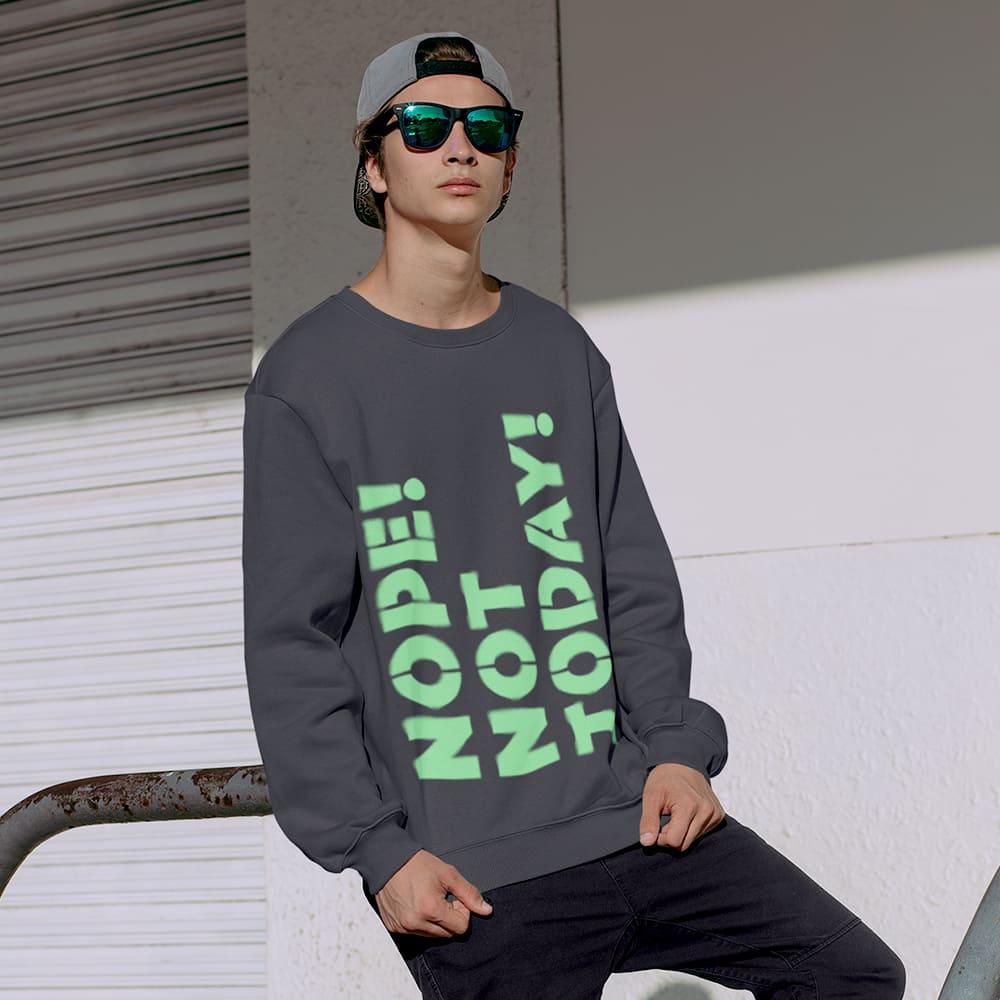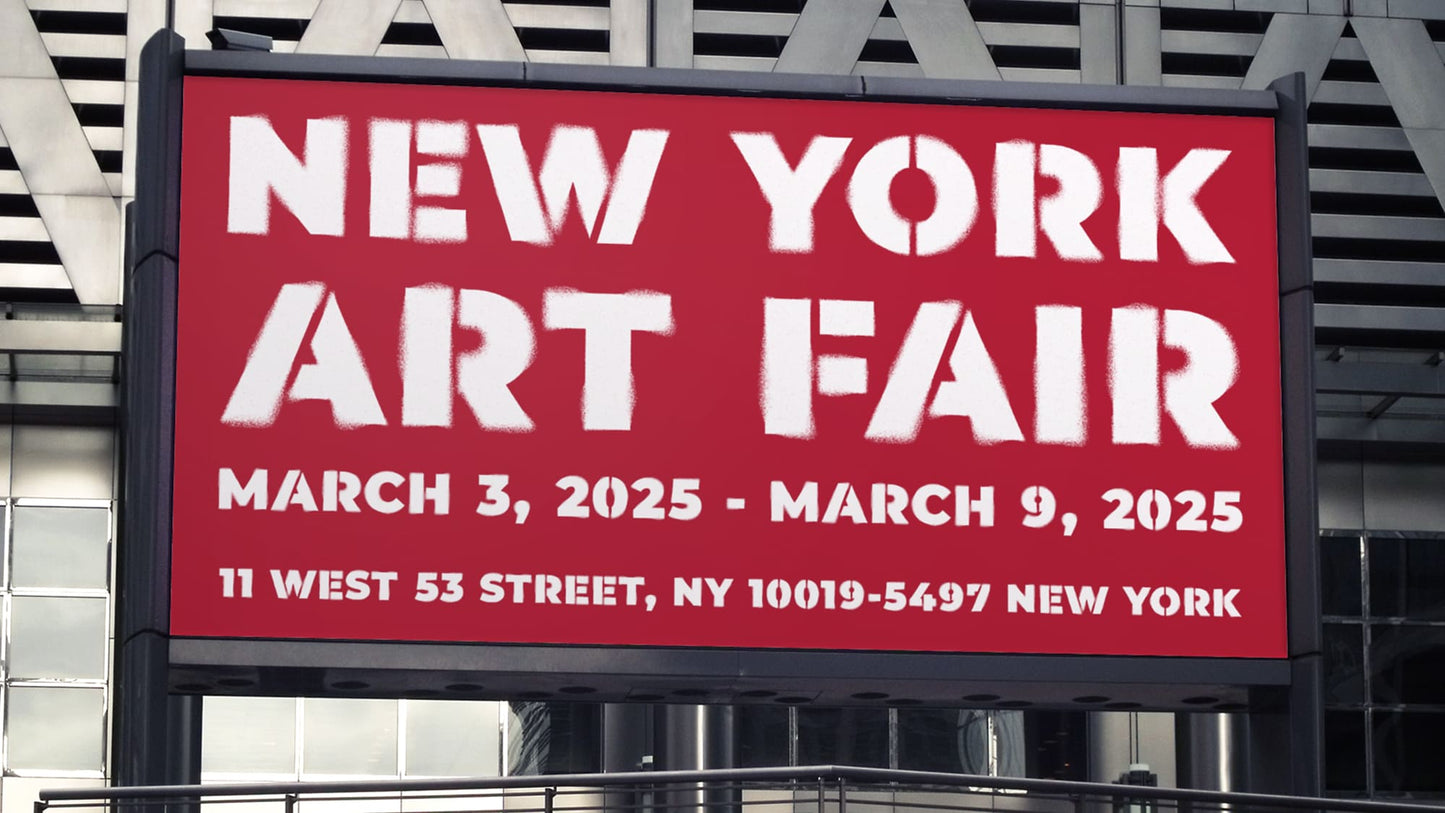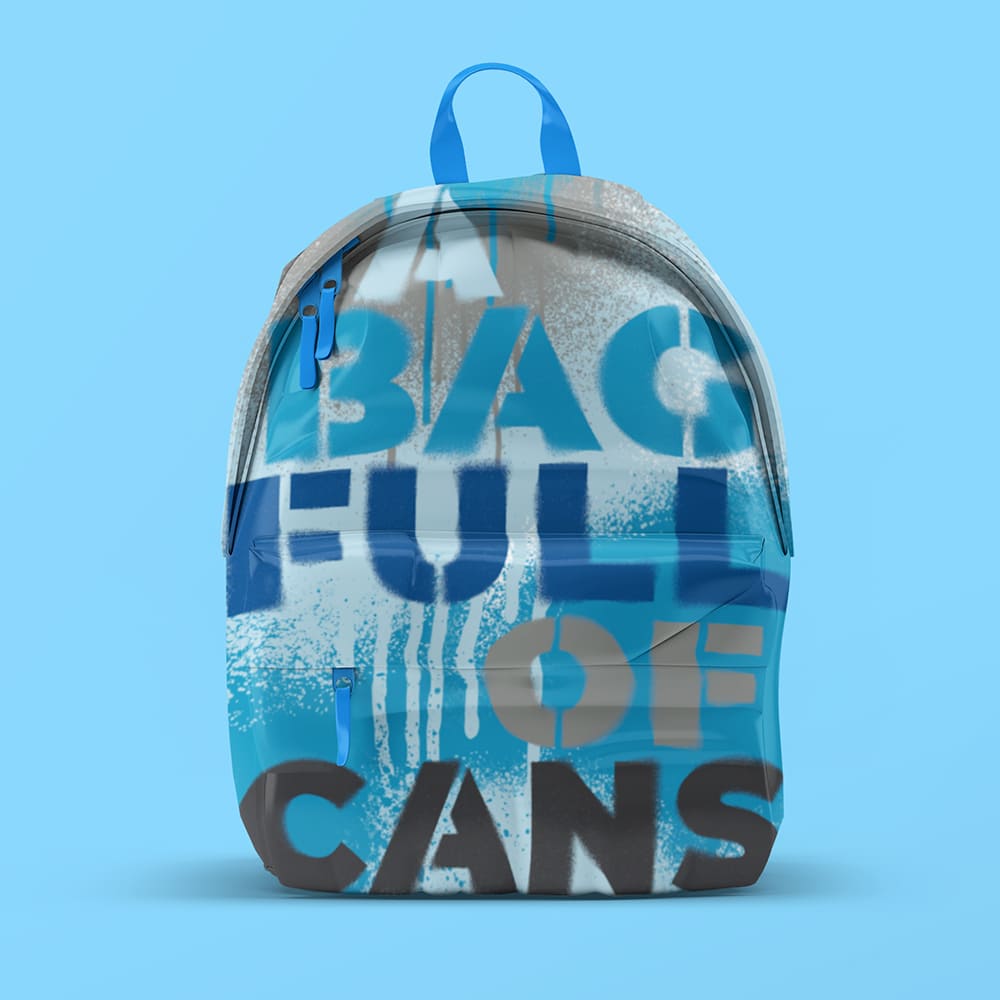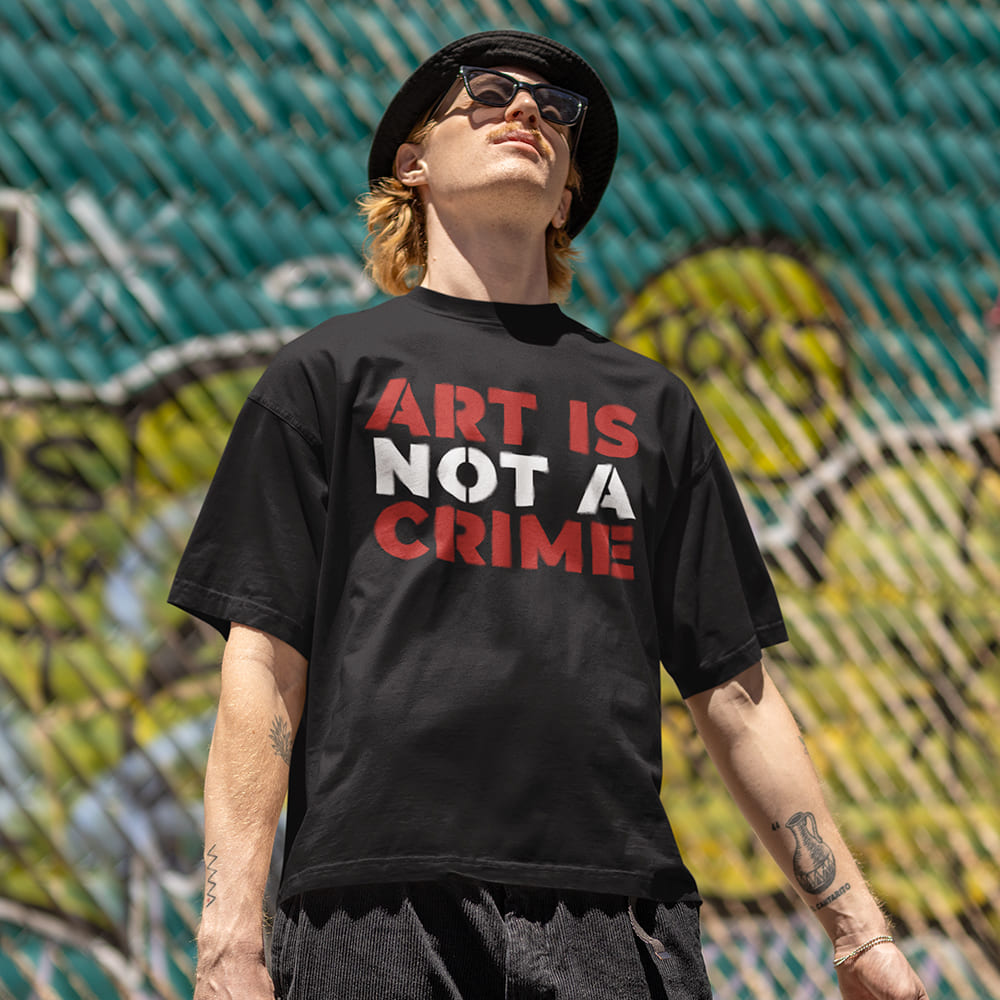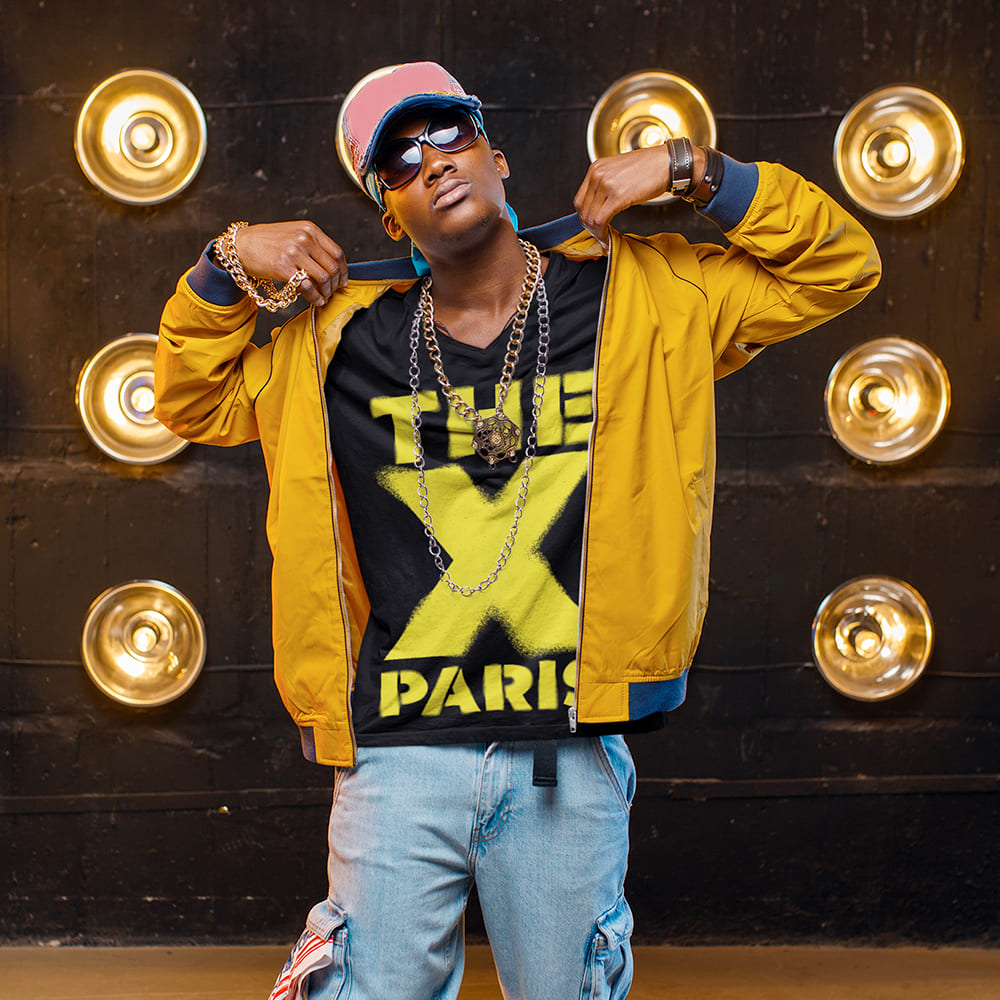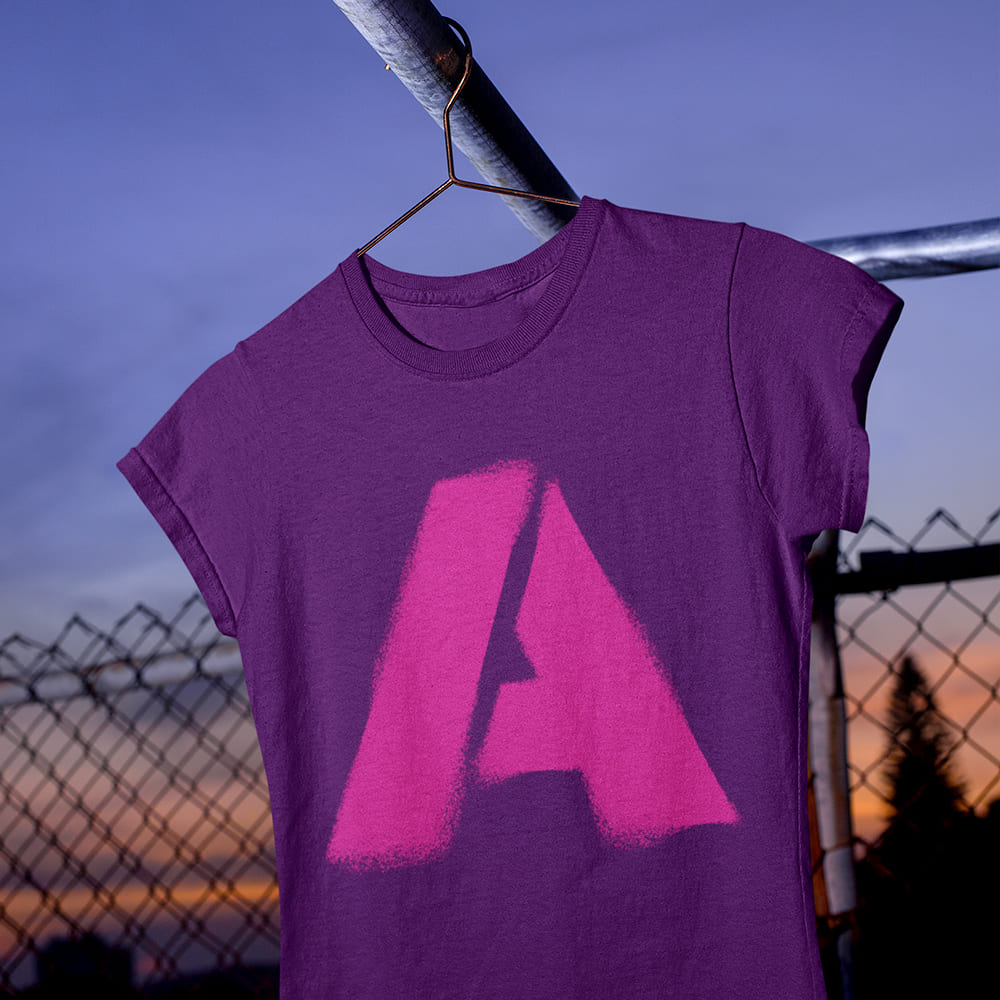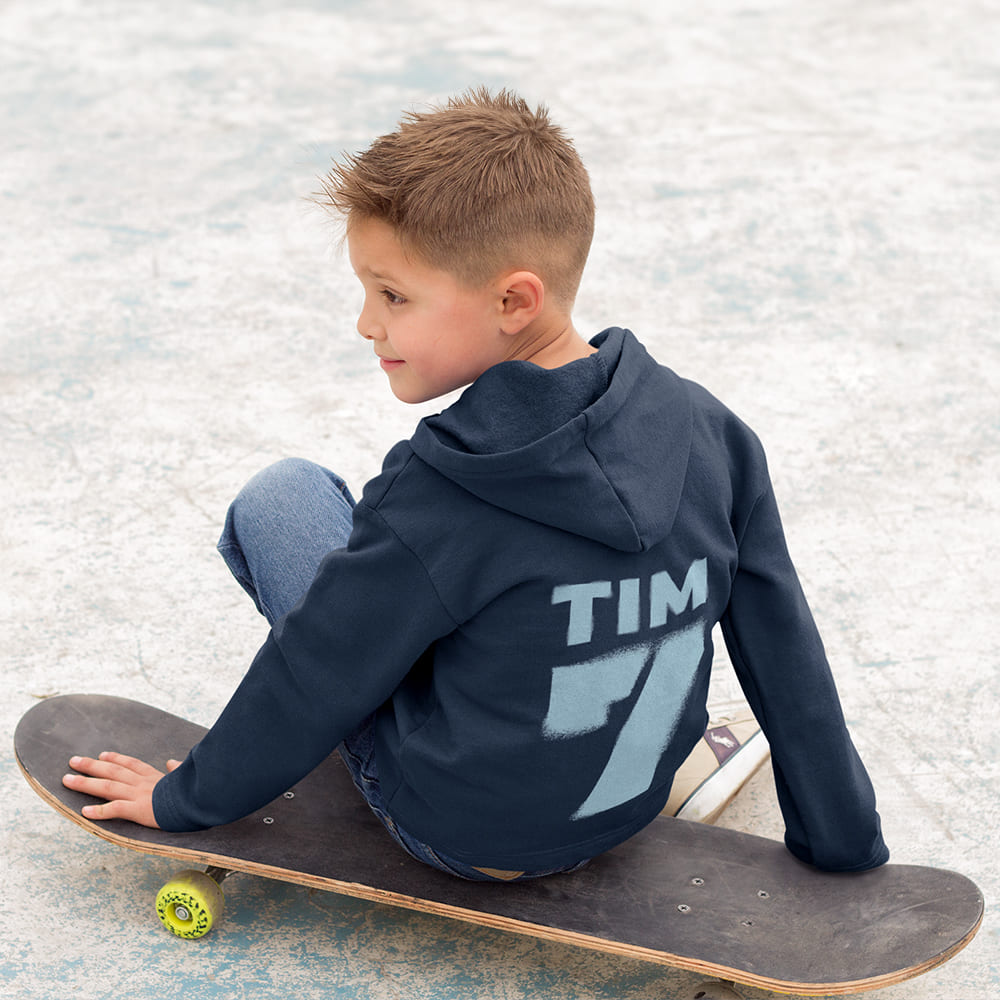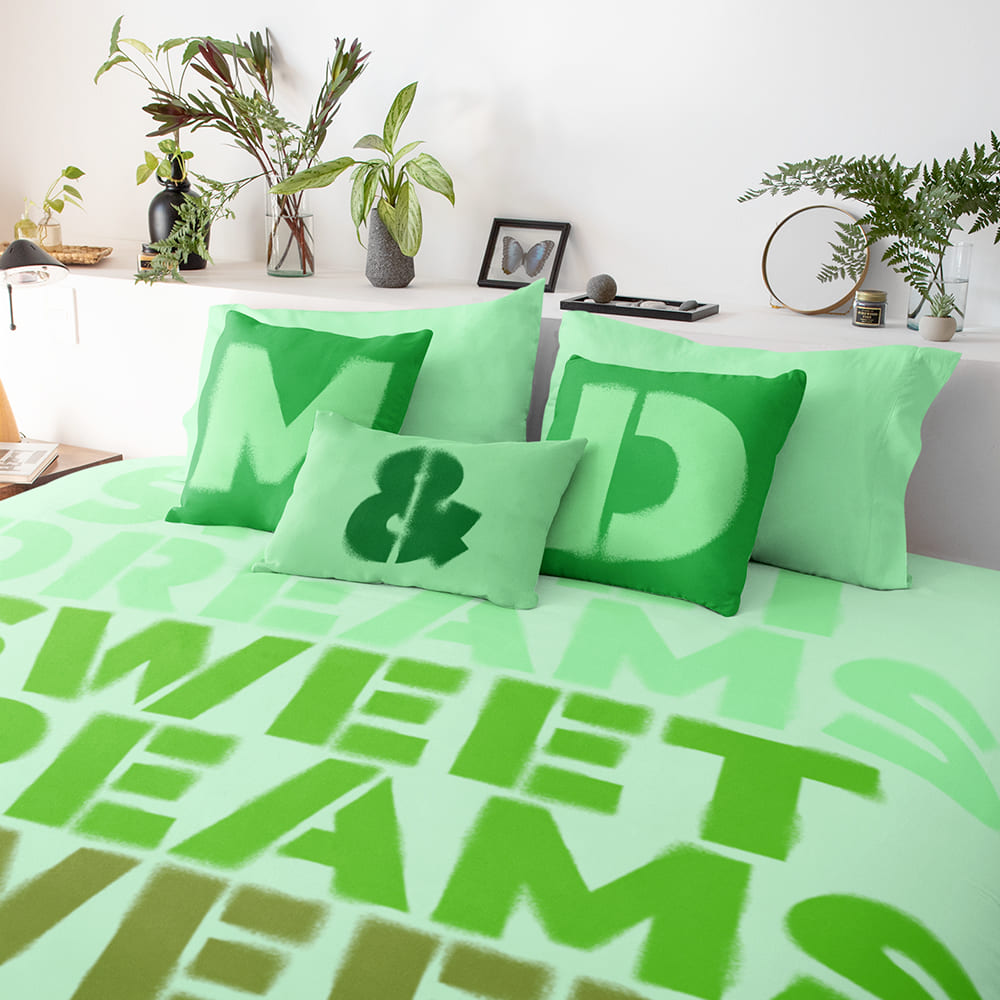
Stencil Font
Raw, Urban, Unmistakable 👨🎨🖤🎨
Stencil graffiti isn’t just a technique – it’s a movement. Inspired by the works of legendary street artists like Scott Williams, Blek le Rat and Banksy, the Stencil Font brings this rebellious, raw energy to your designs. Perfect for anyone looking to make a bold statement!
Why Choose the Stencil Font?
🔹 Rough & authentic – With its sprayed edges and signature stencil look, this font feels like it was lifted straight from a gritty urban wall.
🔹 Perfect for bold statements – Whether for streetwear, posters, album covers, or social media, this font adds an edgy, rebellious vibe to any design.
🔹 Inspired by street art legends – From Blek le Rat’s iconic rats to Banksy’s thought-provoking works and Scott Williams’ raw stencil masterpieces – this font captures the essence of urban art.
🔥 EVERY FONT ROCKER FONT COMES WITH 325 GLYPHS & SUPPORTS OVER 100+ LANGUAGES WORLDWIDE, INCLUDING CYRILLIC, GREEK & MORE.
Turn Your Design into Street Art with the Stencil Font
Make your message loud, bold, and unforgettable! This font is for those who love urban style, graffiti, and the raw aesthetics of the streets. Plus, it’s available in multiple colors, giving you even more creative freedom to match your vision.
🔹 Be edgy. Be loud. Be street art.
🔹 Choose art. Choose rebellion. Choose the Stencil Font.